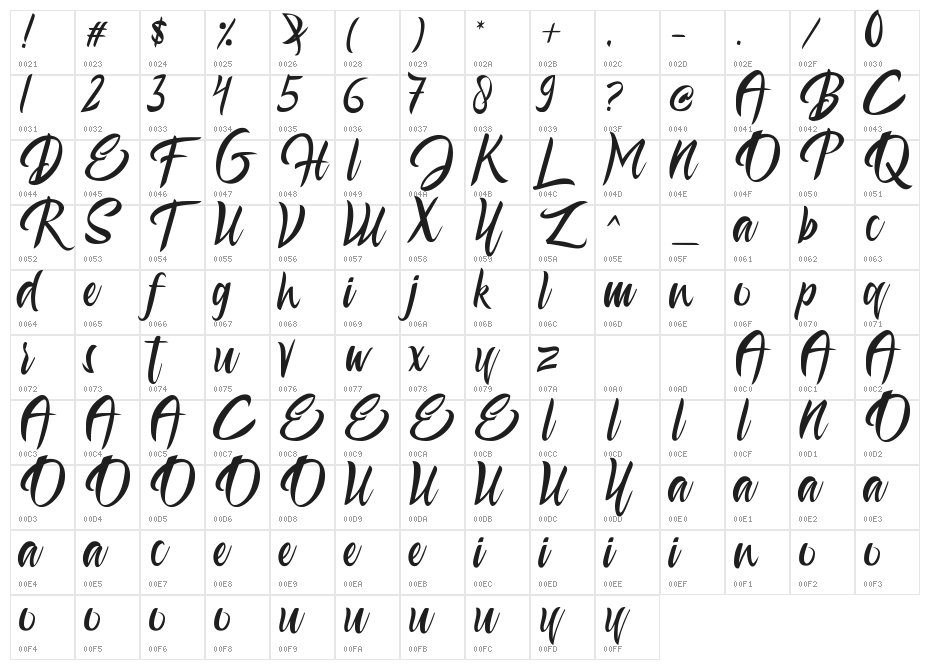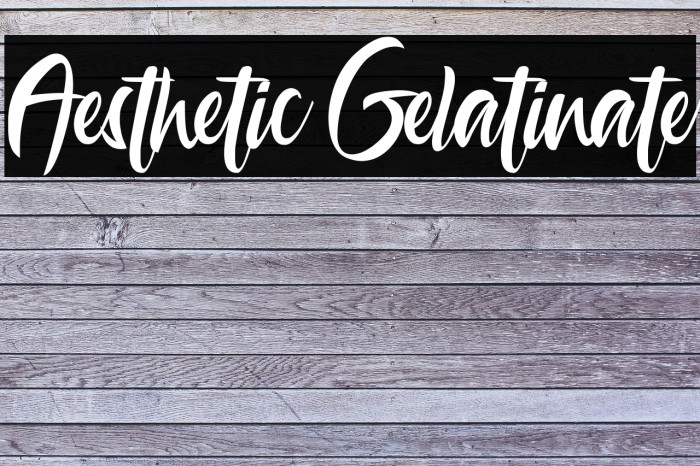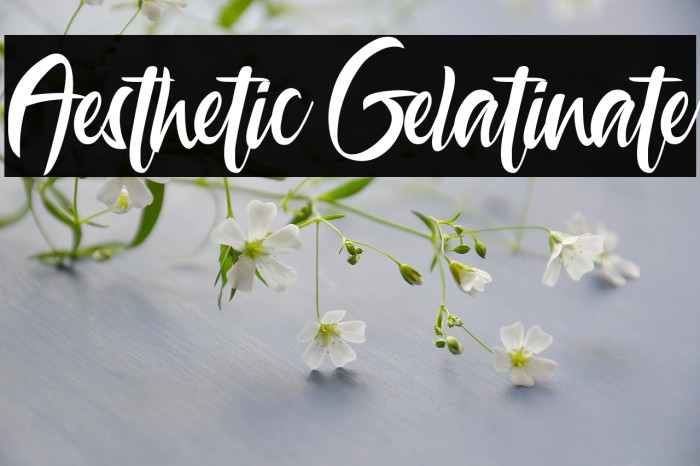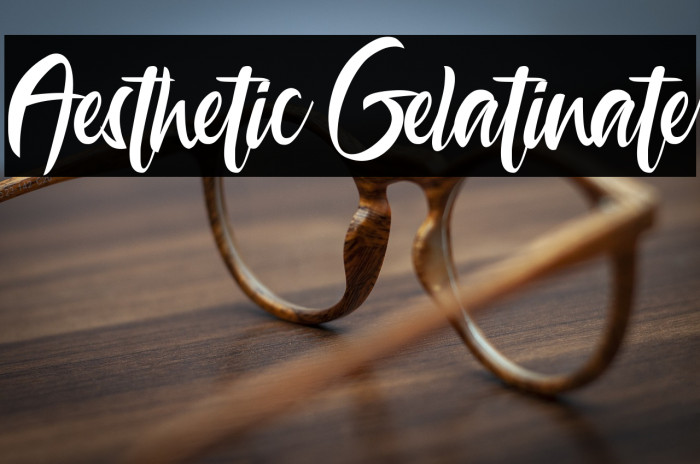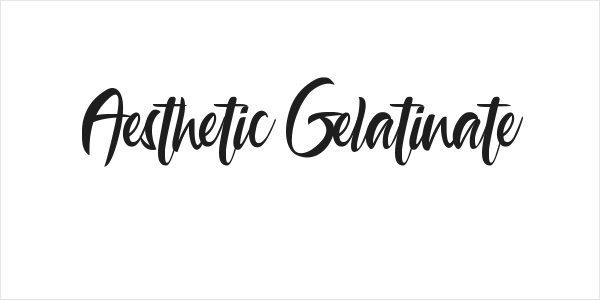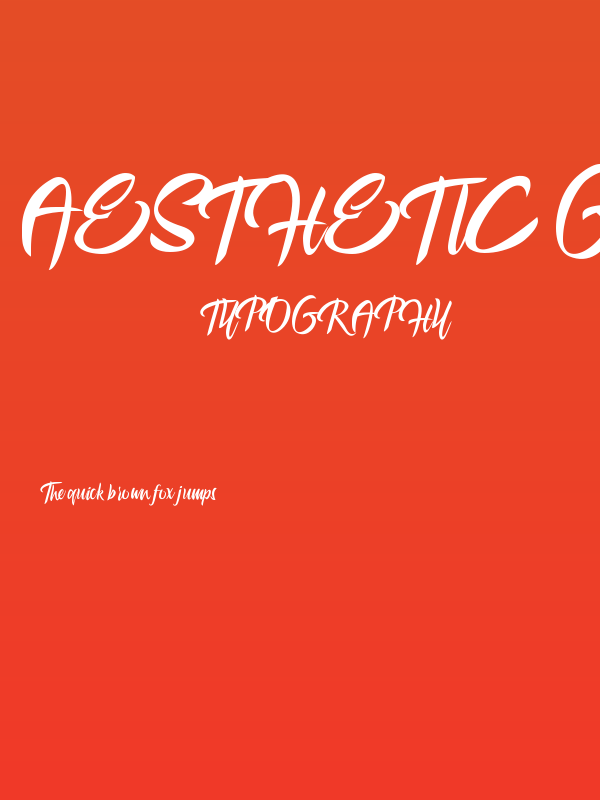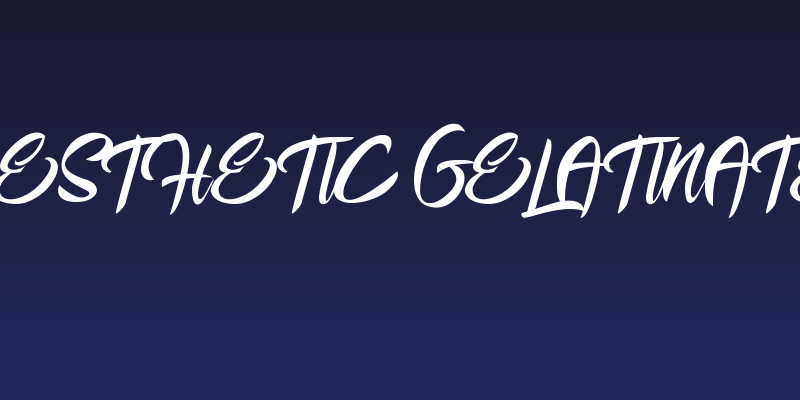
Aesthetic Gelatinate Font
Aesthetic Gelatinate Description
This font features a bold, expressive script style with a flowing, cursive appearance. The characters are interconnected, creating a sense of movement and fluidity. The uppercase letters are elegantly elongated, while the lowercase letters maintain a consistent, rounded form. The numbers and special characters follow the same dynamic style, adding a playful yet sophisticated touch. The overall design is both artistic and legible, making it suitable for creative projects that require a personal, handwritten feel.
Use CaseLogos, Headlines, Artistic projects
Proposed ProjectsIdeal for branding, invitations, greeting cards, and artistic posters.